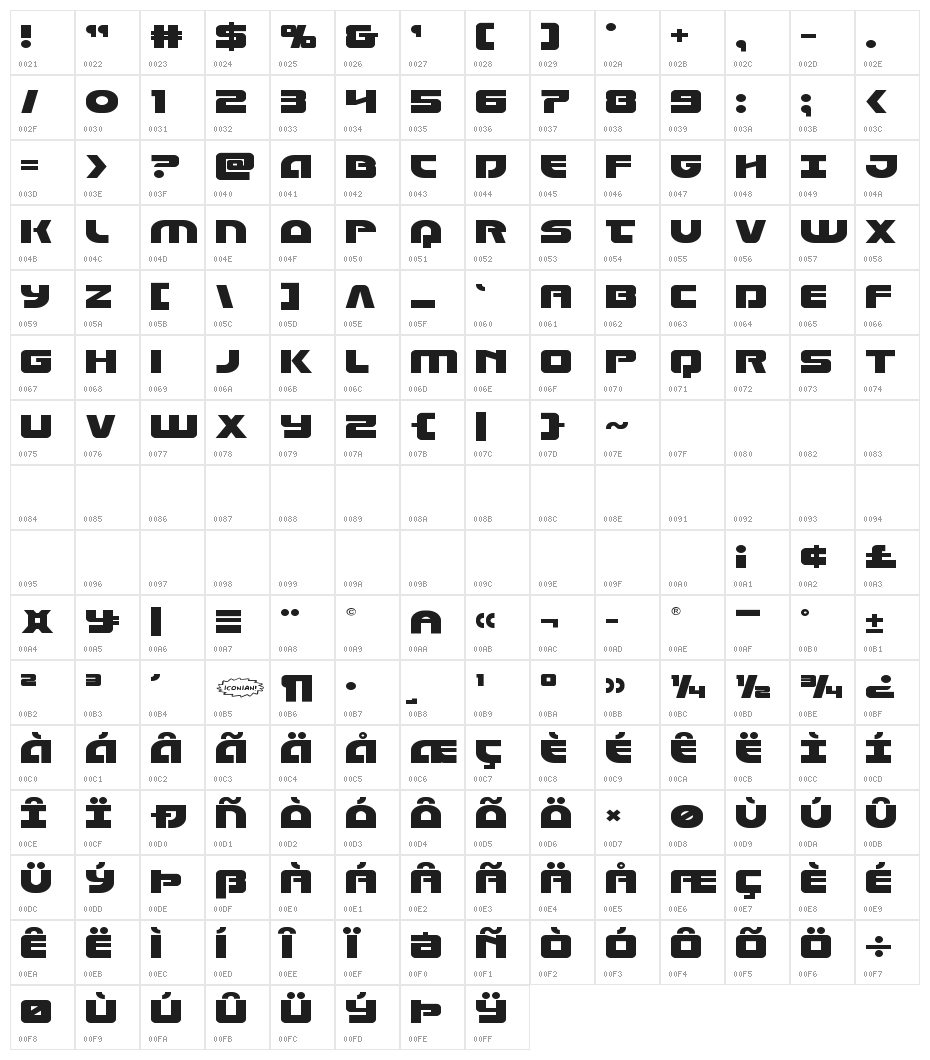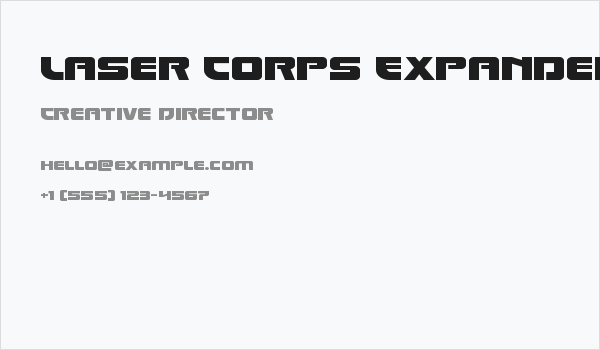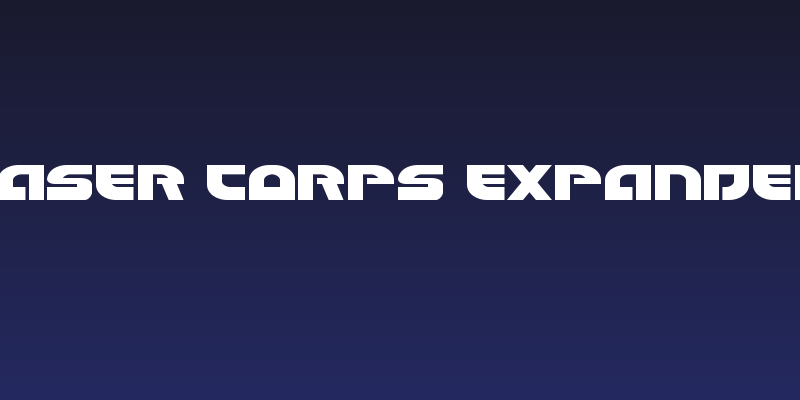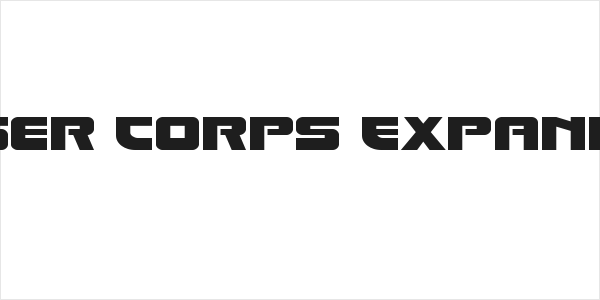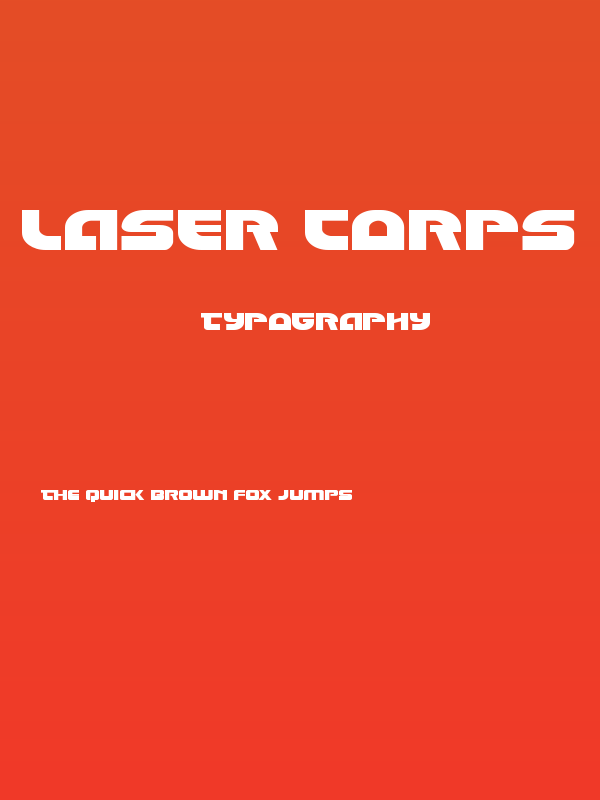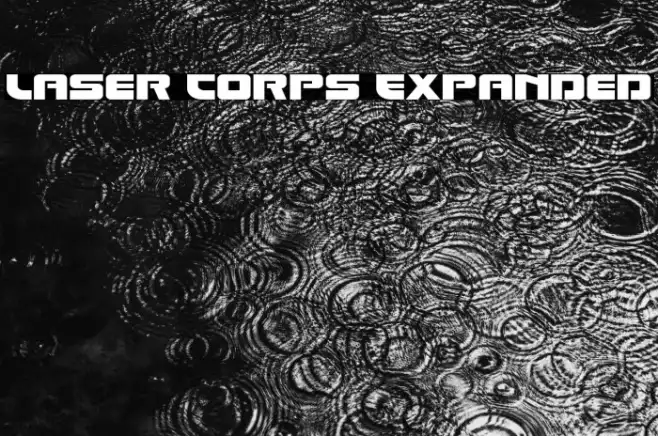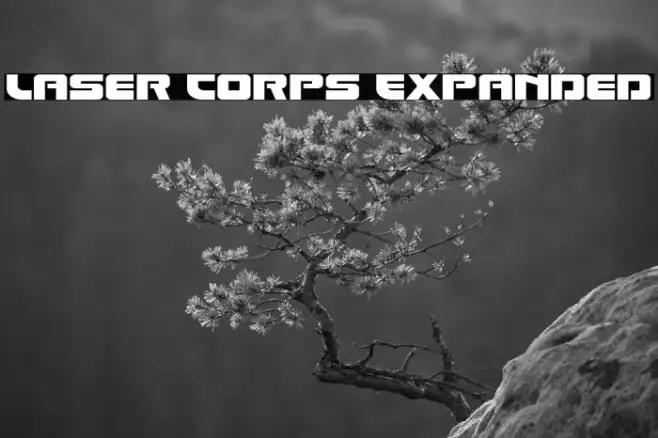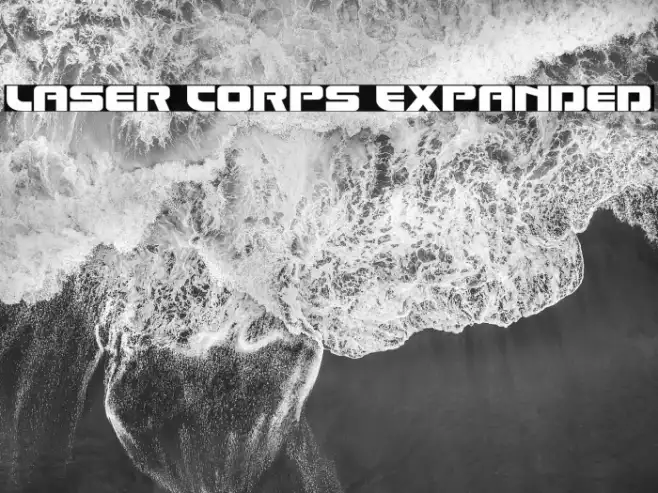
Laser Corps Expanded Font
Laser Corps Expanded Description
This font features a bold, futuristic design with a distinctly angular and geometric style. The characters are crafted with sharp edges and a blocky appearance, giving it a strong and commanding presence. The uppercase letters are uniform in height, while the lowercase letters maintain a consistent style, enhancing readability. The numbers and special characters follow the same design principles, ensuring a cohesive look across all glyphs. The font's expanded width and tight character spacing contribute to its modern and dynamic aesthetic, making it ideal for attention-grabbing headlines and impactful designs.
| Proposed Projects | Ideal for sci-fi themed projects, technology branding, video game titles, and futuristic posters. |